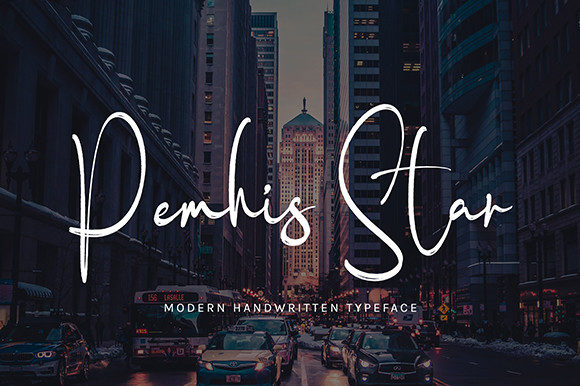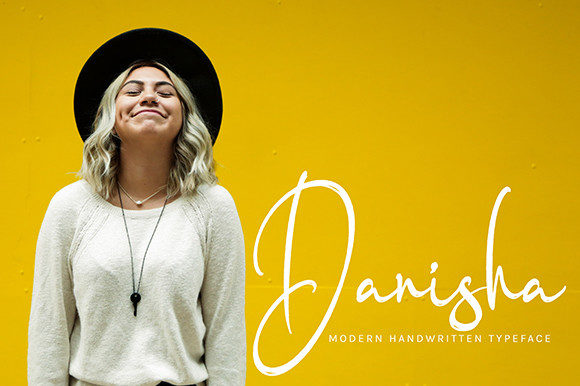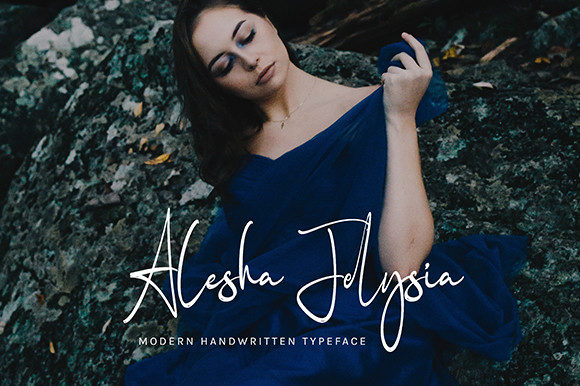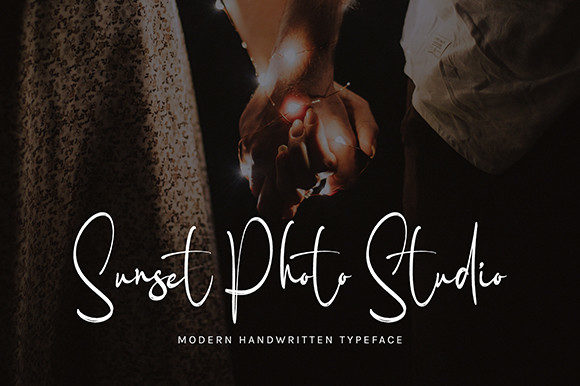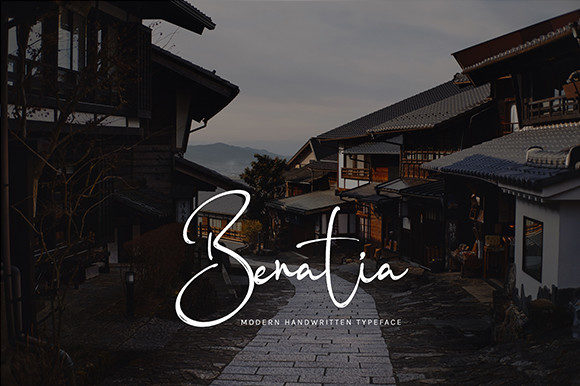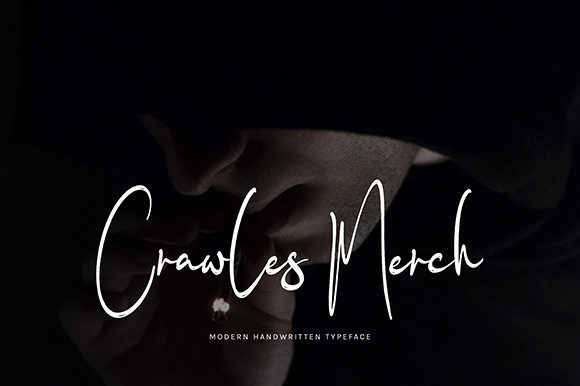
The Brutal Solid Font: A Delicate yet Powerful Addition to Your Design Arsenal
I’ll never forget the time I was working on a project for a client who wanted a bold, yet elegant font to convey their brand’s message. I spent hours scouring the internet for the perfect font, only to come across Brutal Solid – a delicate and script font that exceeded my expectations. In this article, I’ll share my experience with Brutal Solid, its features, and how to make the most of it in your designs.
An Honest Review of Brutal Solid
So, what makes Brutal Solid special? Here are a few things I love about this font:
- ✨ Unique blend of delicacy and boldness: Brutal Solid strikes the perfect balance between being elegant and making a statement.
- ✅ Highly versatile: This font is perfect for a wide range of projects, including quotes, logos, blog headers, posters, branding, letters, invitations, stationery, and more.
- 💫 Excellent for digital and print designs: Whether you’re designing for a screen or paper, Brutal Solid performs exceptionally well.
However, no font is perfect, and Brutal Solid has a few quirks:
- 🤔 Limited use of uppercase letters: While the font does include uppercase letters, they might not be as stylized as the lowercase letters.
- ⚠️ Requires careful kerning: As with any script font, kerning can be a bit tricky, especially when using it for longer texts.
The Backstory of Brutal Solid
While the origins of Brutal Solid might be shrouded in mystery, it’s clear that the designer aimed to create a font that’s both delicate and powerful. The result is a font that adds a touch of elegance to any design while still making a statement.
| Font Name | Brutal Solid Font |
| Author | Pineungtype & Missinklab |
| What type of projects is Brutal Solid best suited for? | Brutal Solid is highly versatile and suitable for quotes, logos, blog headers, posters, branding, letters, invitations, stationery, and more. |
| Is Brutal Solid suitable for body text? | While Brutal Solid is beautiful for headings and titles, it might not be the best choice for body text due to its script nature and potential kerning issues. |